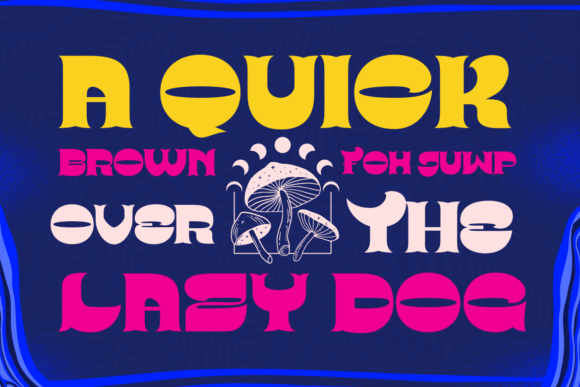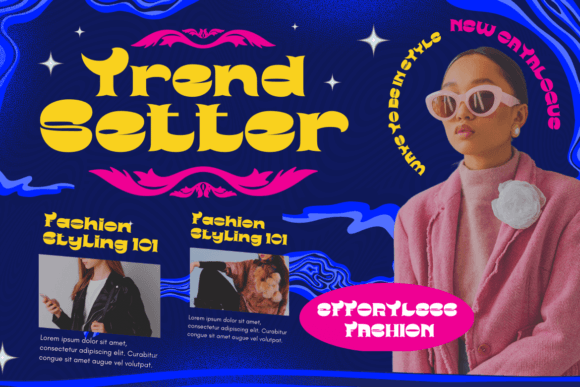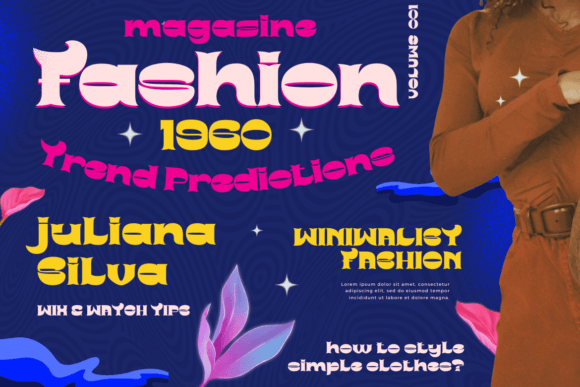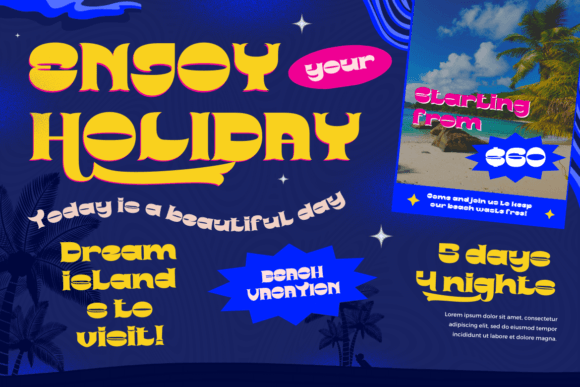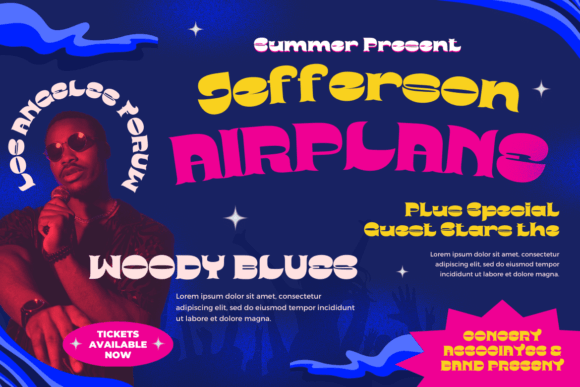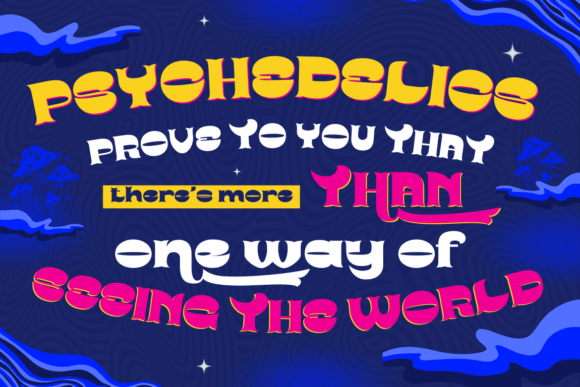
Introduction to Roges Font
Roges is a trippy hippie retro font that brings flowing handwriting to your text graphics.
This font provides a great complement to your project, multiple character alternatives that add subtle wiggles and beautiful title matches create some surprises in the perfection of the look of your project Hurry up to create an amazing project with this font.